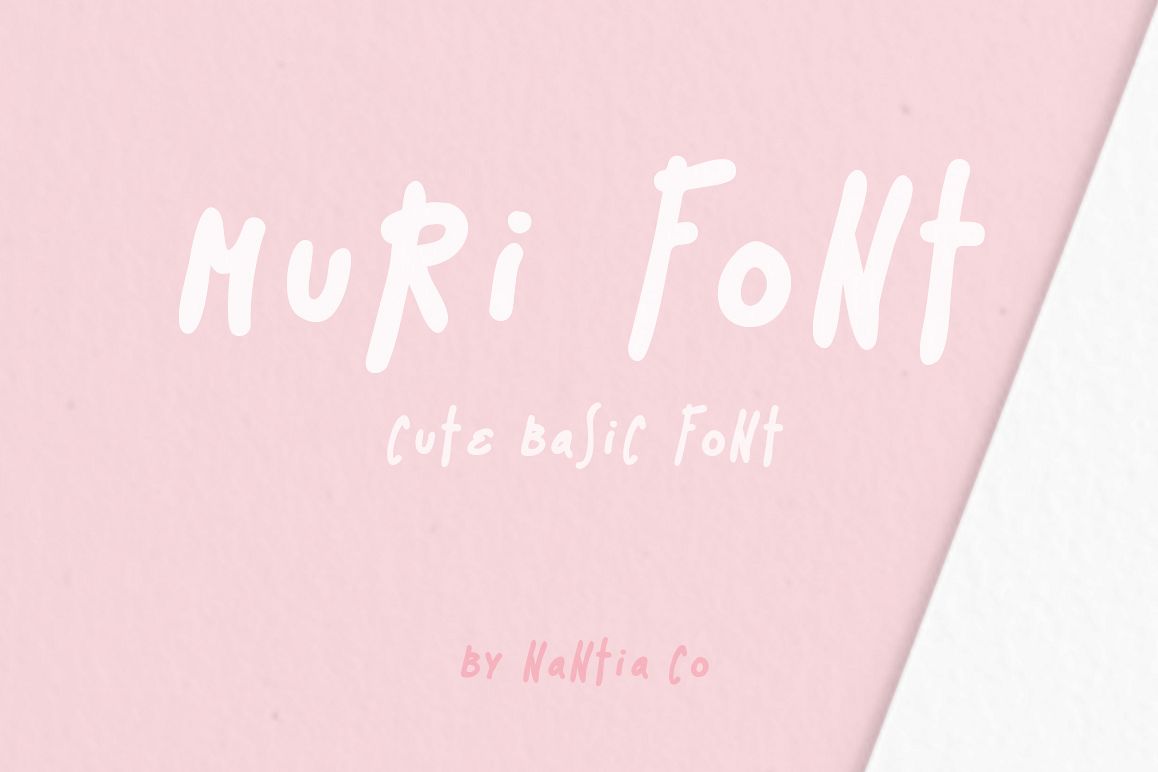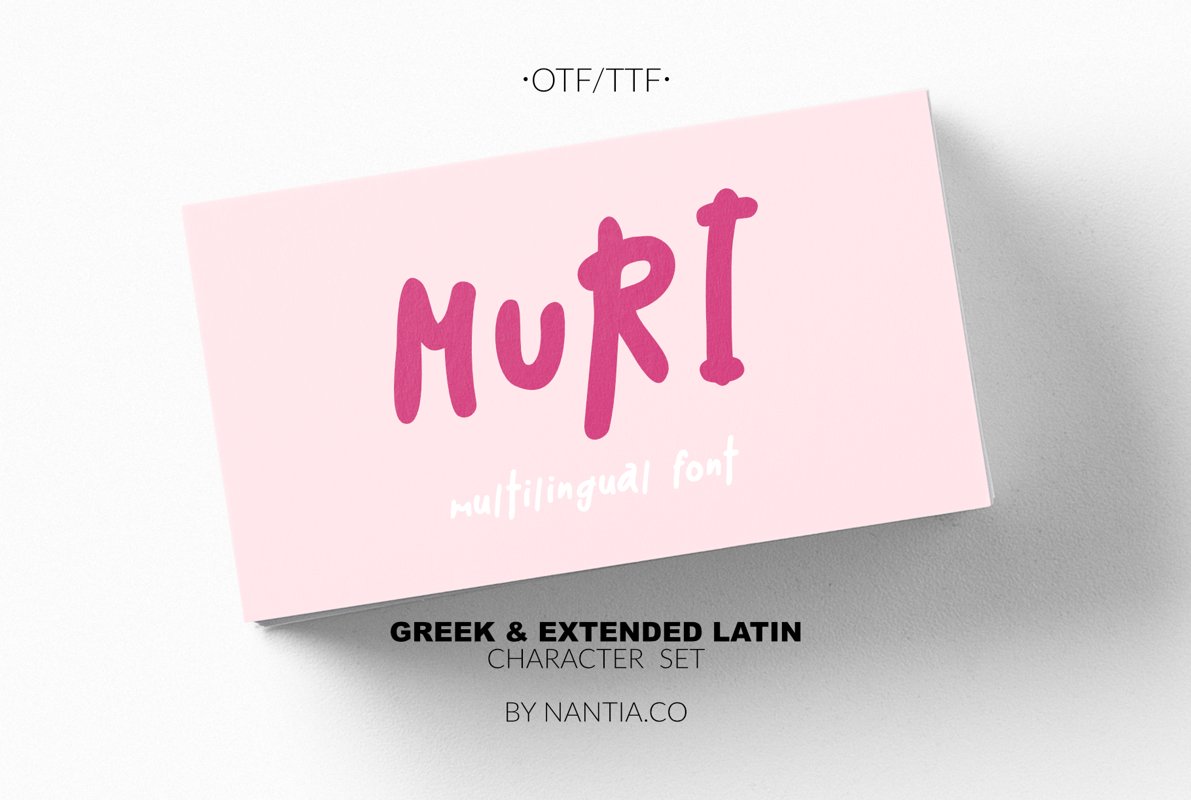
Muri the Handcrafted Font
Muri Handcrafted Greek Font is your basic cute font.
This multilingual font, with Greek and Extended Latin character set, is a cute display font for your handwritten font collection. Muri Handcrafted Greek Font is handcrafted, but still is maintaining it's legibility and balance so it can be used in packaging or logotypes and branding. Also, the latest version of the font supports both uppercase and lowercase characters. Especially if you are looking for a font to use on Instagram quote posts or any other social media content, this typeface is for you!So, with your font purchase you get:
• Extended Latin character set,
• diacritics for multilingual support,
• Greek character set,
• punctuation marks and
• numbers